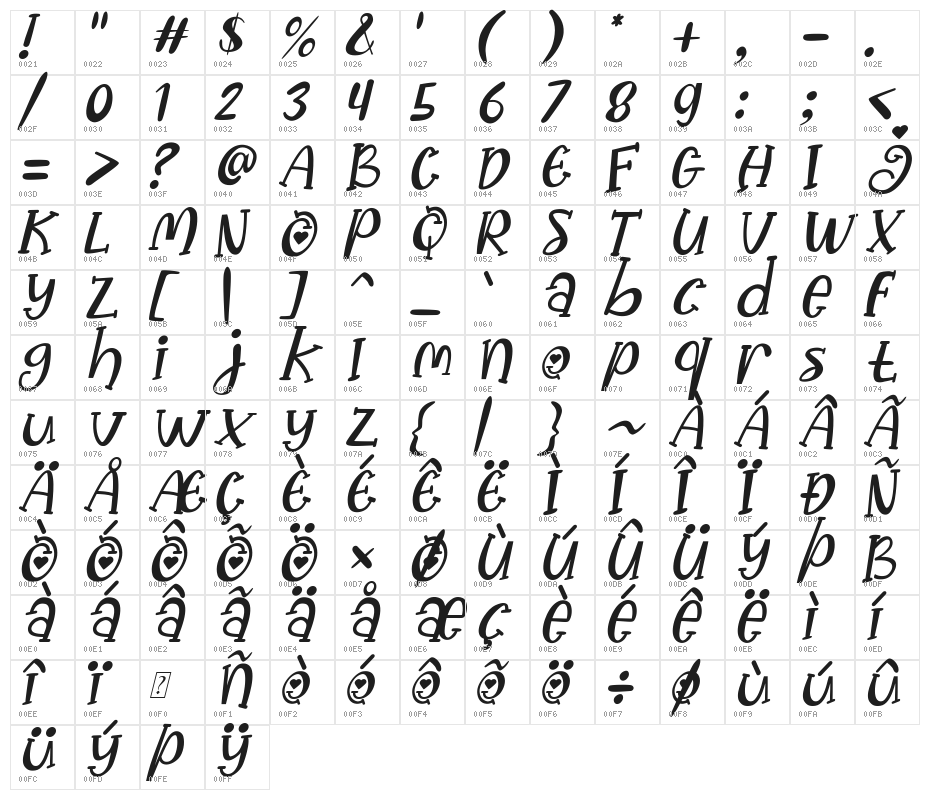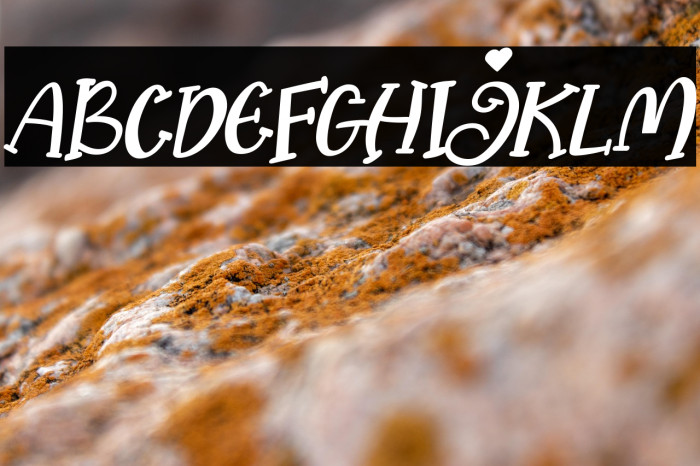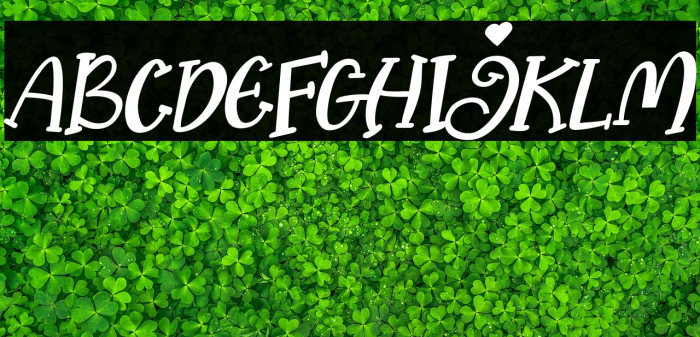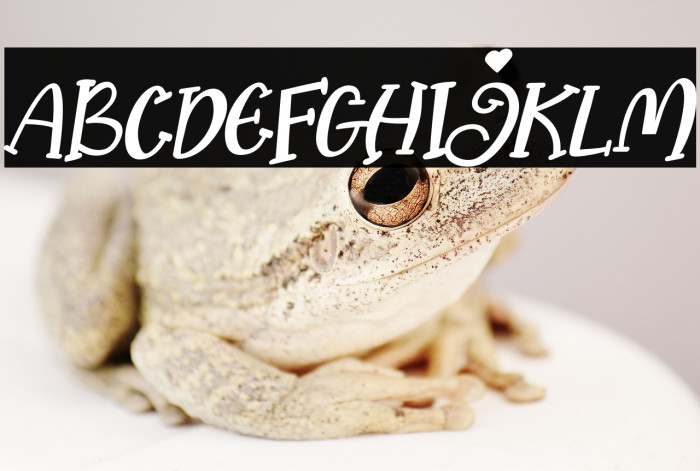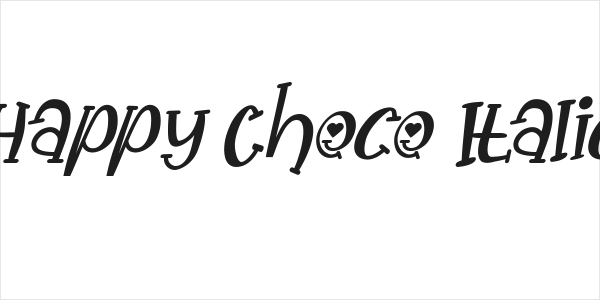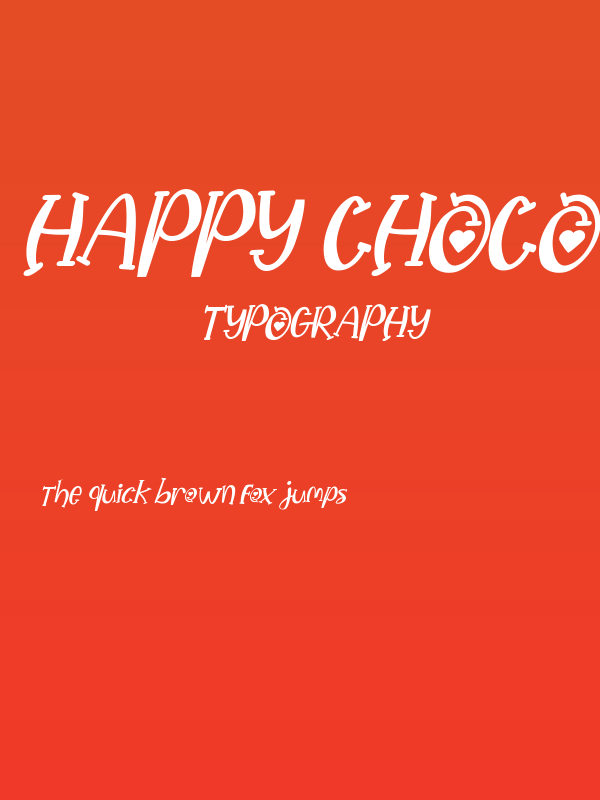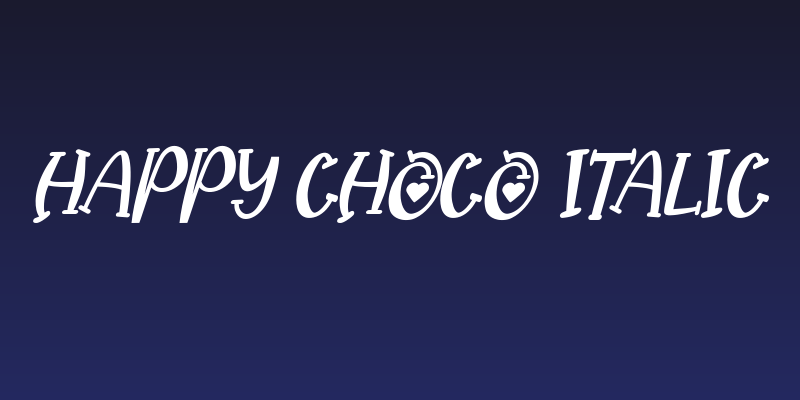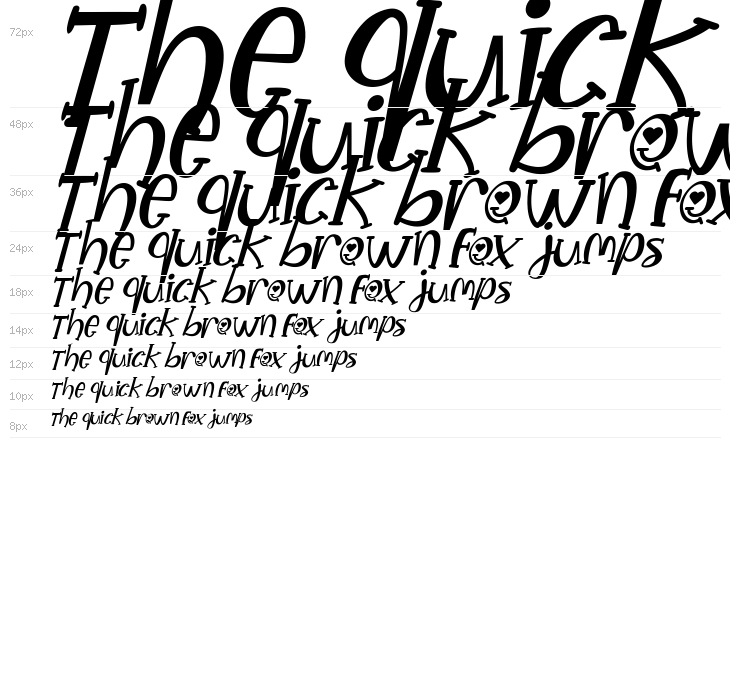
Happy Choco Italic Font
Happy Choco Italic Description
This playful and whimsical font features a unique blend of bold strokes and italicized characters, creating a lively and dynamic appearance. The uppercase letters are adorned with charming embellishments, such as hearts and swirls, adding a touch of fun and creativity. The lowercase letters maintain a consistent style, with smooth curves and a slightly slanted orientation. The numerals are bold and expressive, matching the overall energetic vibe of the font. Special characters are creatively designed, incorporating the same playful elements seen throughout the alphabet.
| Use Case | Headlines, Logos, Creative Projects |
| Proposed Projects | Ideal for children's books, playful branding, greeting cards, and creative posters. |